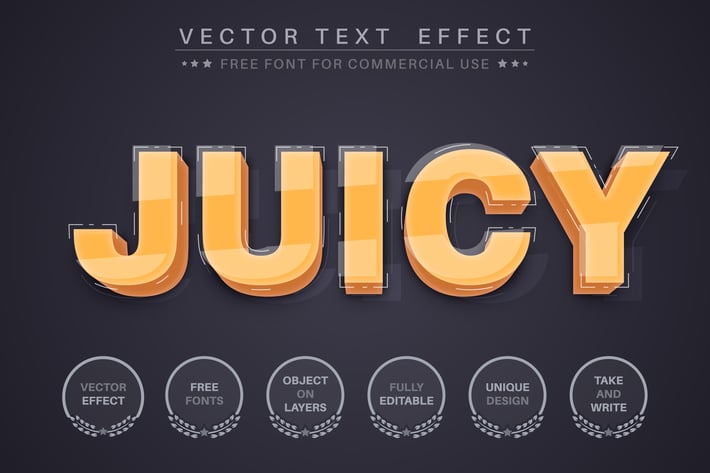
3D yellow - editable text effect, font style
Hello! I'm happy to introduce my new text effect "3D Yelloe". Just write your word and the effect will apply!. Be as creative as you like to be in expressing yourself using this unique “3D Yellow”. Effect is perfect for any project that needs a unique handy touch whatever else your imagination leads you to!